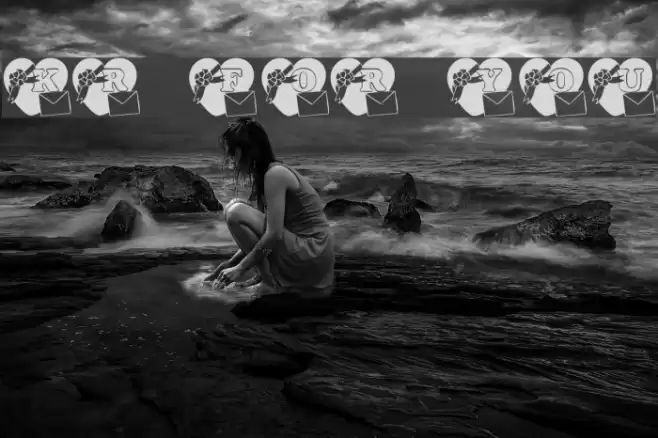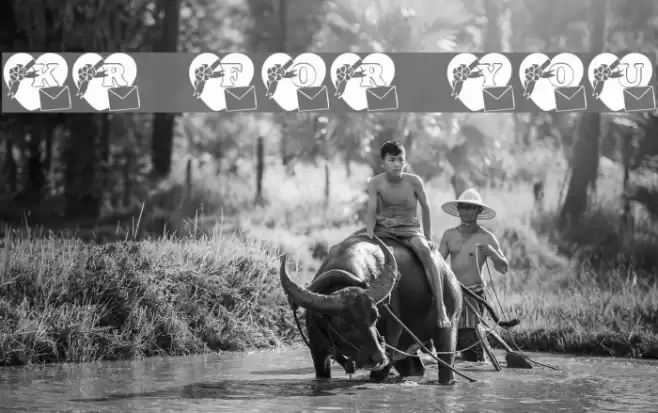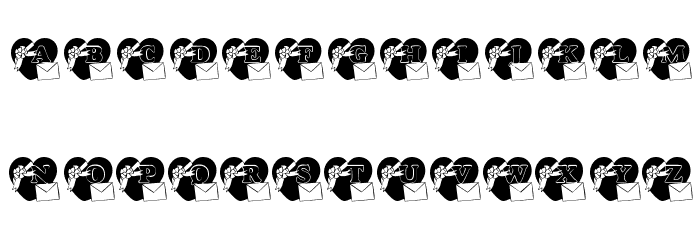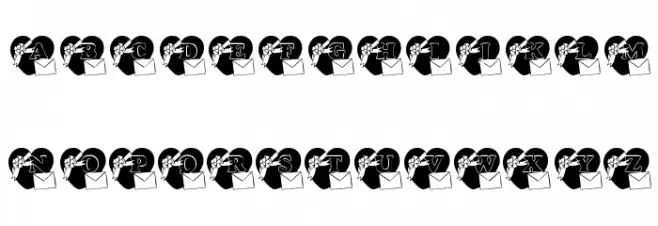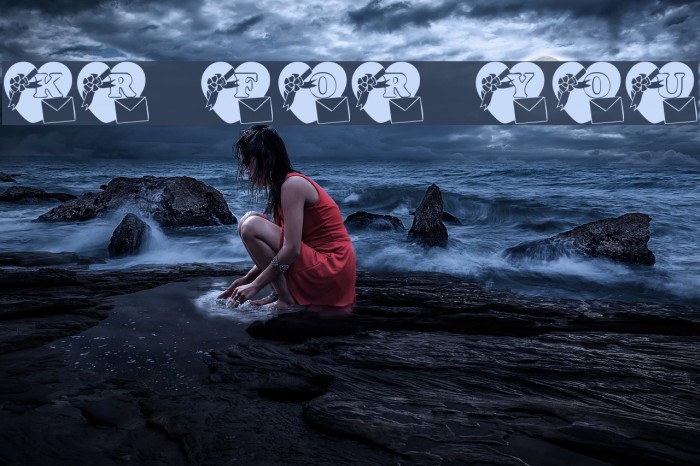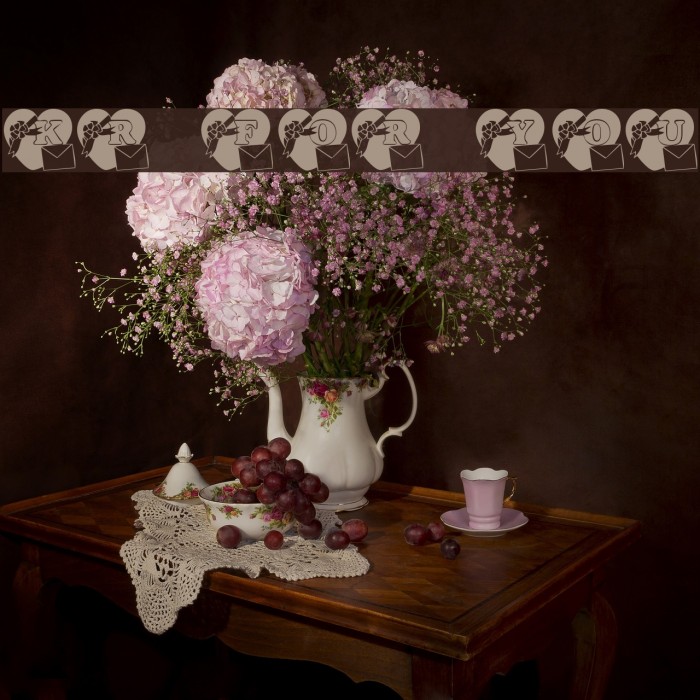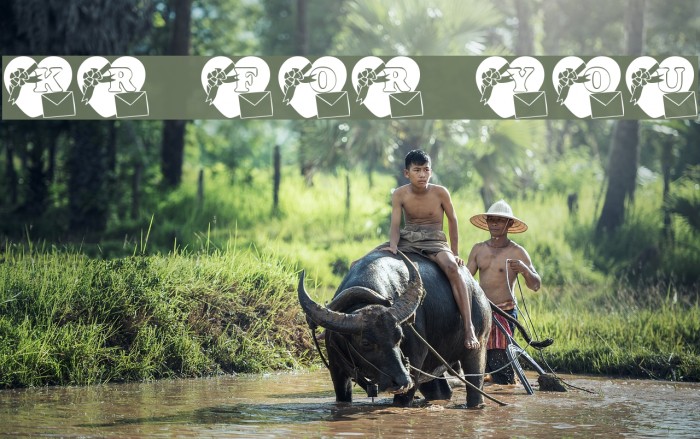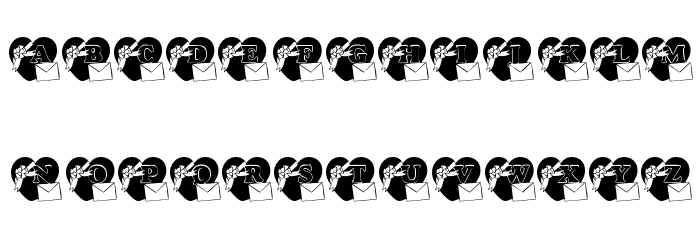
KR For You Font
KR For You Description
This decorative font features each letter encased within a heart shape, accompanied by a small envelope and floral design. The letters are bold and white, standing out against the black heart background. The whimsical and romantic theme is consistent across all characters, making it ideal for projects that require a touch of charm and elegance. The font does not include lowercase letters, numbers, or special characters, focusing solely on uppercase letters. Its unique style is perfect for creating personalized stationery, wedding invitations, or Valentine's Day cards.
A decorative font with letters inside heart shapes, featuring floral and envelope motifs from Uncategorized fonts.
- Proposed Projects: Ideal for wedding invitations, romantic cards, personalized stationery, and themed decorations.
- Overall Style: Romantic, Whimsical
- Use Case: Logos, Invitations, Decorative Text